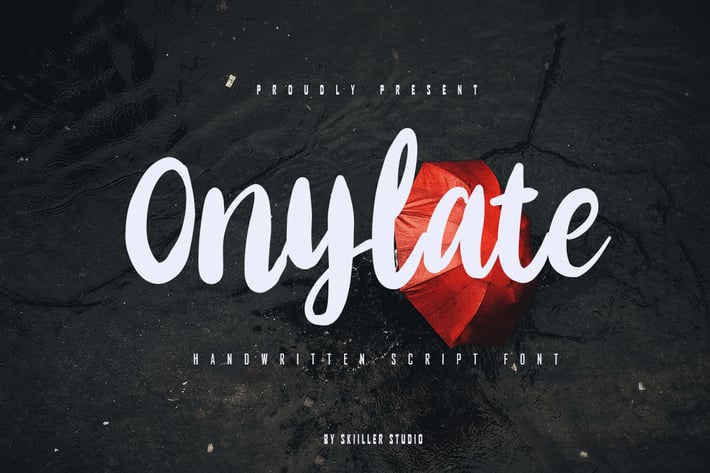
Onylate - Handwritten Script Font
Onylate is a modern and handwritten script font, crafted to give your headlines and logotype projects a stylish touch. This font reads as strong, confident, and dynamic and can add tons of urban character to your designs.